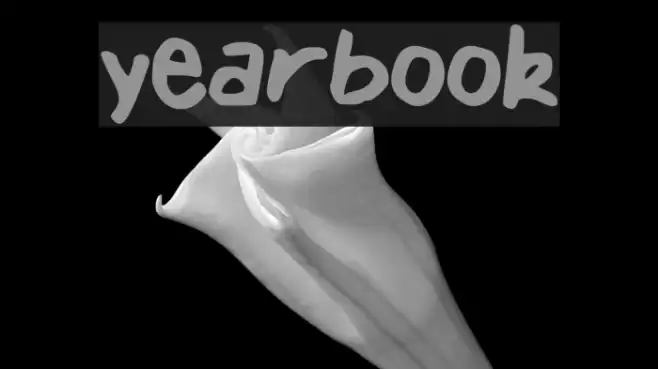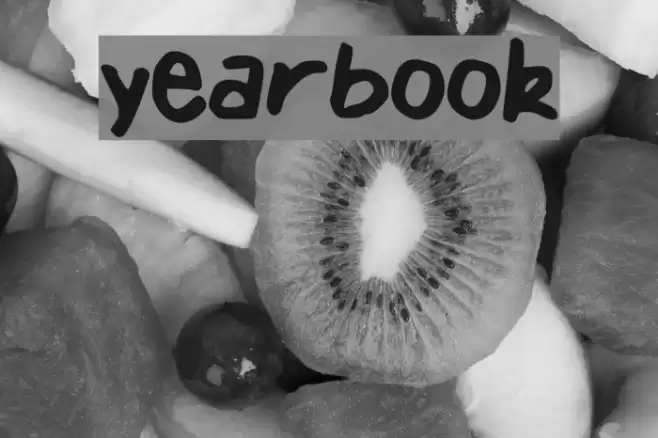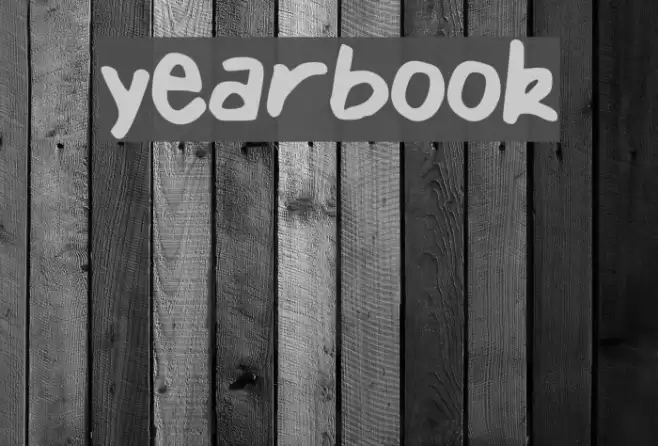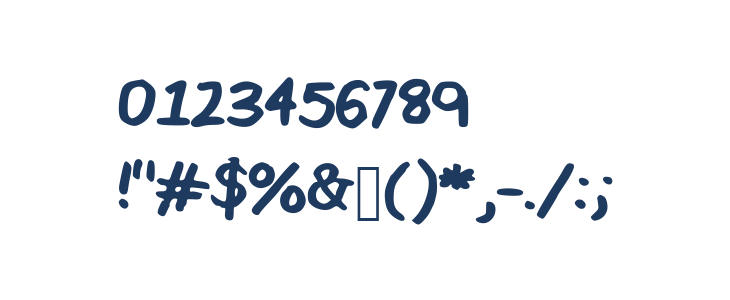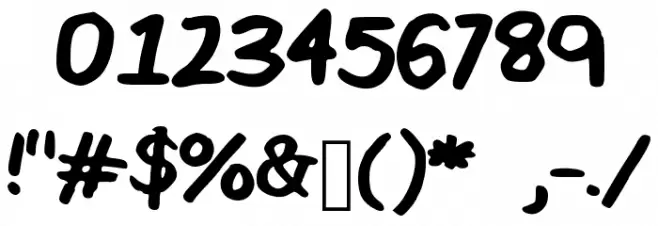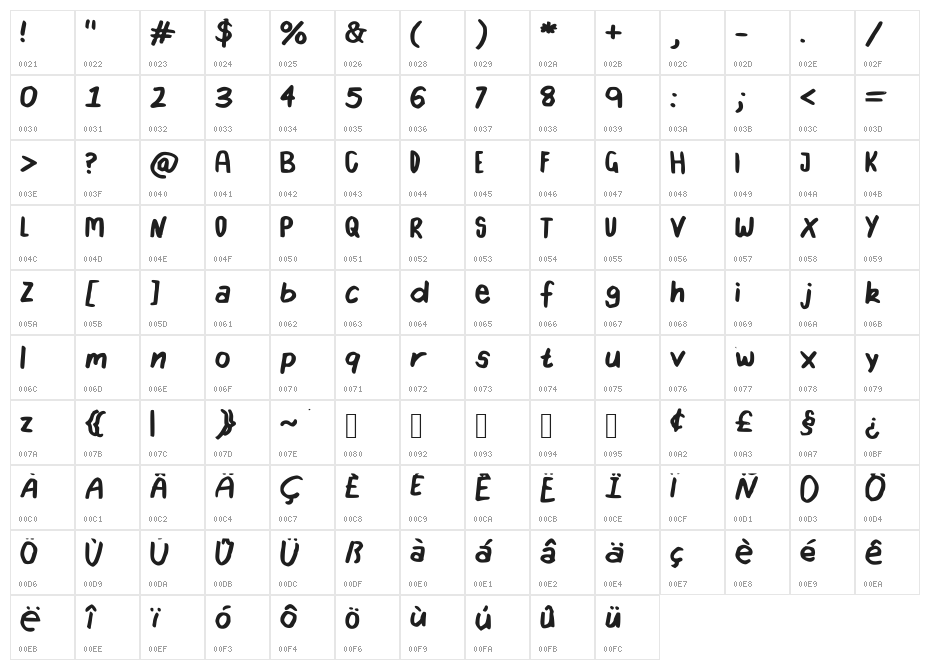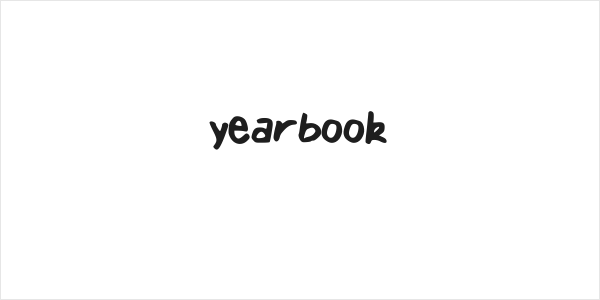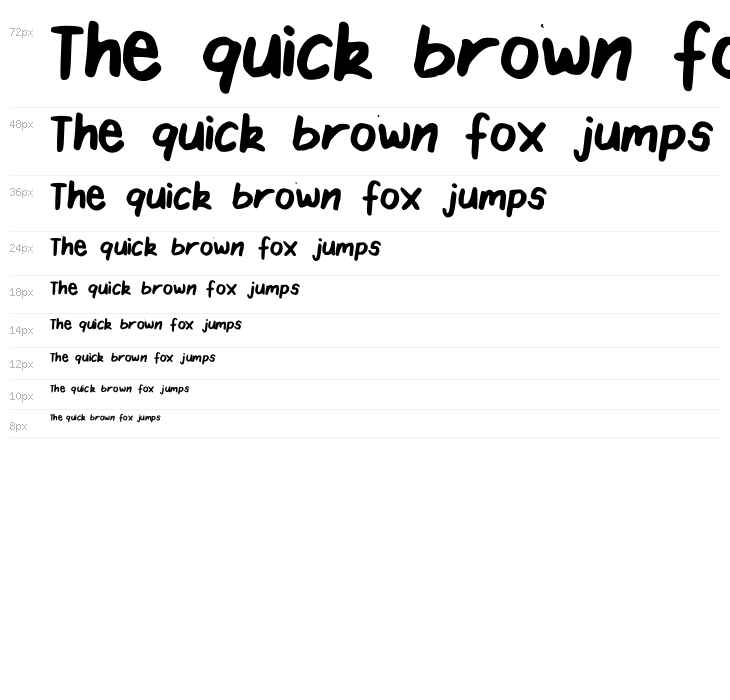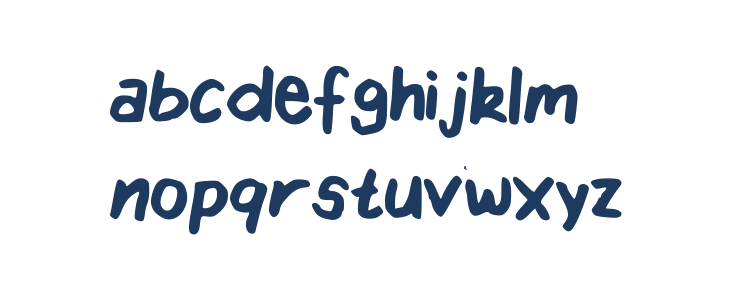
yearbook Font
yearbook Description
This font features a playful and casual handwritten style, characterized by its bold and rounded letterforms. The uppercase and lowercase letters maintain a consistent, friendly appearance with slightly irregular strokes that add a personal touch. The numbers and special characters follow the same design principles, ensuring a cohesive look across all elements. The font's informal and approachable nature makes it suitable for projects that aim to convey warmth and creativity.
A bold, playful handwritten font with rounded, casual letterforms from Handwritten fonts.
- Proposed Projects: Ideal for children's books, greeting cards, playful branding, and social media graphics.
- Overall Style: Casual, Playful
- Use Case: Headlines, Logos, Informal Text